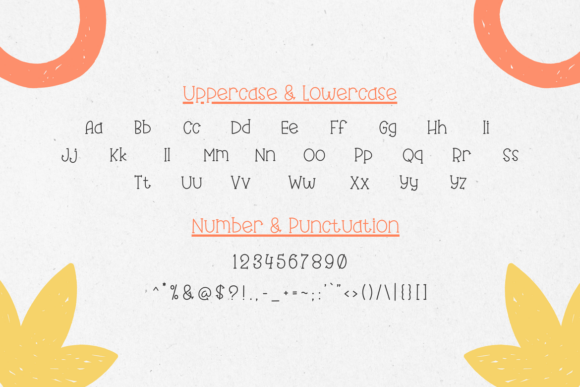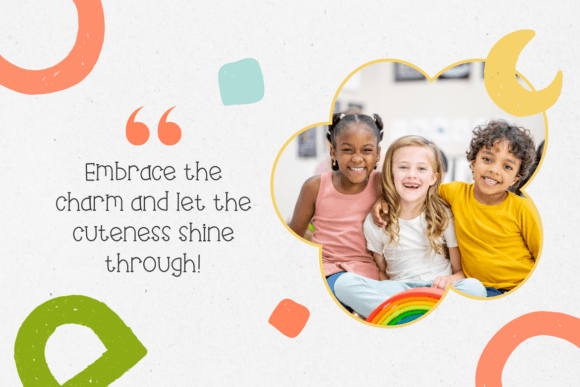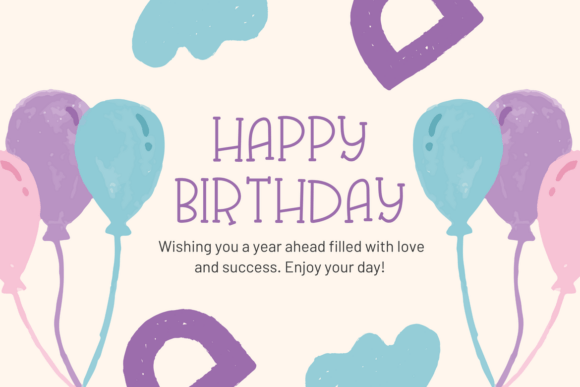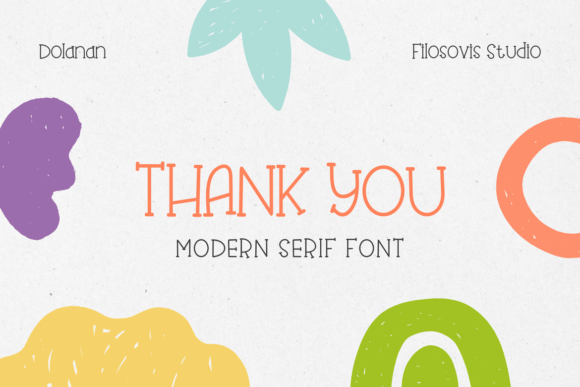
Dolanan Font: The Sweet and Friendly Serif Font for Your Design Needs
Are you a designer or crafter looking for a font that can add a touch of sweetness and friendliness to your projects? Look no further than Dolanan Font! This beautiful serif font is perfect for a wide range of designs, from invitations and greeting cards to branding and packaging. In this article, we’ll take a closer look at Dolanan Font and explore its unique features, uses, and benefits.
What is Dolanan Font?
Dolanan Font is a sweet and friendly serif font that is designed to bring a touch of warmth and personality to your designs. Its natural and unique style makes it incredibly fitting to a large pool of designs, from modern and minimalist to vintage and whimsical. The font is perfect for designers and crafters who want to add a personal touch to their projects and make them stand out from the crowd.
Unique Features of Dolanan Font
So, what makes Dolanan Font so special? Here are some of its unique features:
- Natural and Unique Style: Dolanan Font has a one-of-a-kind style that is both natural and unique. Its serif design gives it a classic and timeless look, while its friendly and approachable feel makes it perfect for designs that need a personal touch.
- Highly Versatile: Dolanan Font is incredibly versatile and can be used for a wide range of designs, from invitations and greeting cards to branding and packaging.
- Easy to Read: The font is easy to read, even at small sizes, making it perfect for designs that require a lot of text.
- Supports Multiple Languages: Dolanan Font supports multiple languages, making it a great choice for designers who work with international clients or want to create designs that cater to a global audience.
Uses of Dolanan Font
Dolanan Font is perfect for a wide range of designs, including:
- Invitations and Greeting Cards: Add a personal touch to your invitations and greeting cards with Dolanan Font’s sweet and friendly style.
- Branding and Packaging: Use Dolanan Font to create unique and memorable branding and packaging designs that stand out from the crowd.
- Digital and Print Media: Dolanan Font is perfect for digital and print media, including social media graphics, blog posts, and magazine ads.
- Crafting and DIY Projects: Add a touch of personality to your crafting and DIY projects, such as handmade cards, gift tags, and scrapbooking pages.
Benefits of Using Dolanan Font
So, why should you choose Dolanan Font for your design needs? Here are some benefits:
- Unique and Memorable Designs: Dolanan Font helps you create unique and memorable designs that stand out from the crowd.
- Time-Saving: With Dolanan Font, you can save time and effort in creating designs that look professional and polished.
In conclusion, Dolanan Font is a sweet and friendly serif font that is perfect for designers and crafters who want to add a personal touch to their projects. Its natural and unique style makes it incredibly fitting to a large pool of designs, and its highly versatile and easy-to-read design makes it perfect for a wide range of uses. Whether you’re creating invitations, branding, or crafting projects, Dolanan Font is a great choice. So why wait? Try Dolanan Font today and see the difference it can make in your designs!